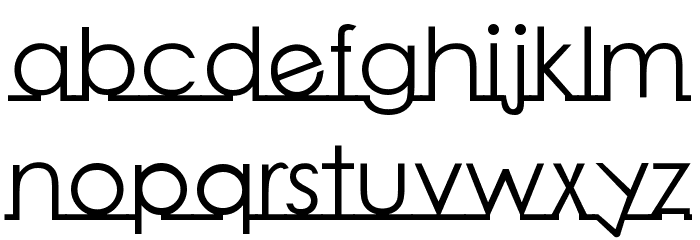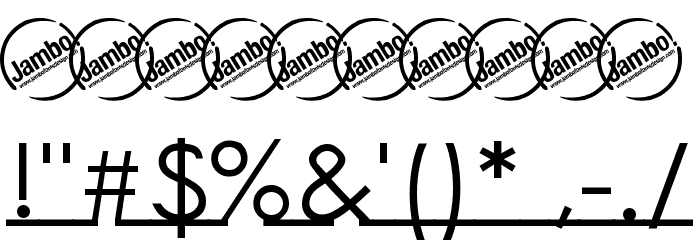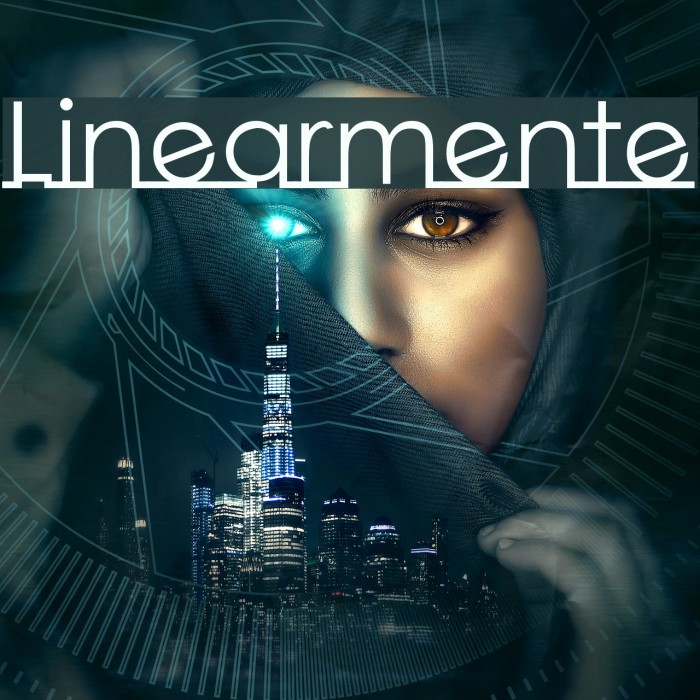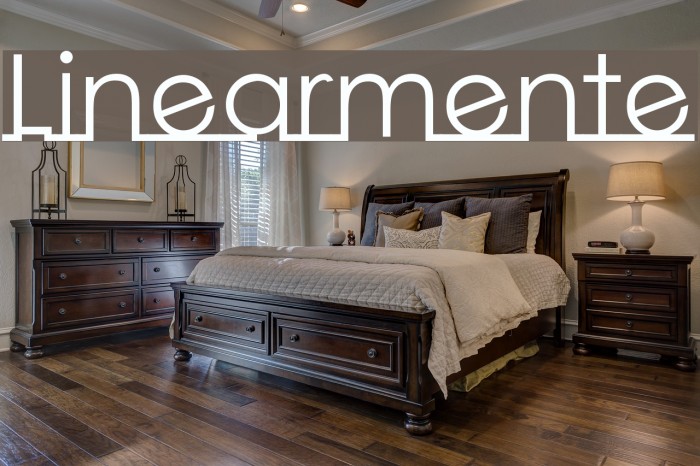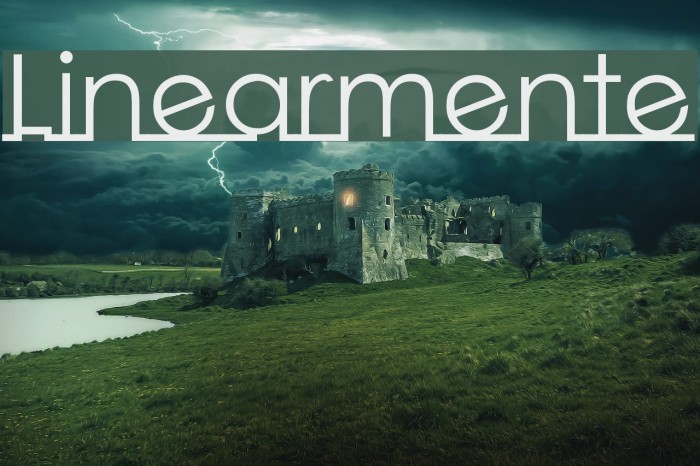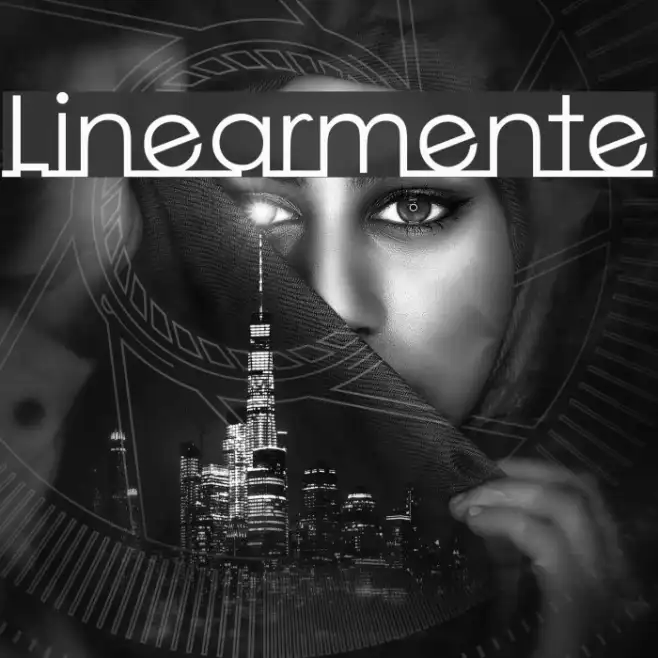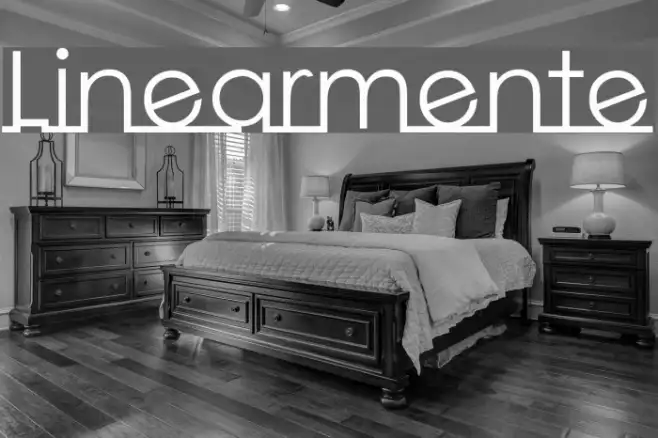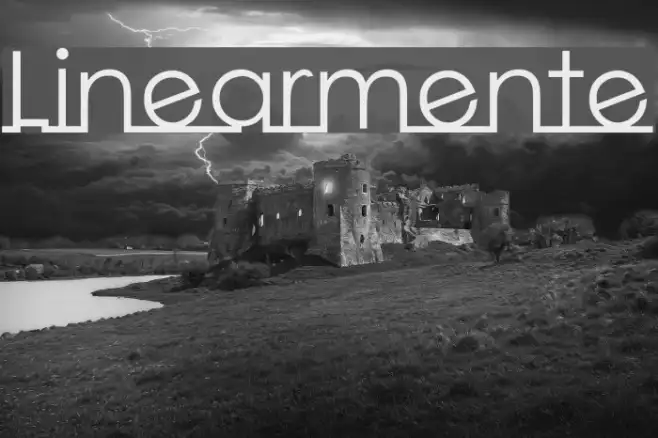
Linearmente Font
This font features a clean, geometric design with a modern aesthetic. The characters are constructed with consistent stroke widths, giving it a uniform appearance. The uppercase letters are bold and striking, while the lowercase letters maintain a harmonious balance with their rounded forms. The font includes a full set of numerals and a variety of special characters, making it versatile for different uses. Its linear and structured style is complemented by a slight curvature in certain letters, adding a touch of elegance. The spacing between characters is normal, ensuring readability and clarity.
A modern, geometric font with consistent stroke widths and balanced forms.
- Font: Linearmente
by JamboFonts - Weight: Regular
- Proposed Projects: Ideal for branding, advertising, and editorial design projects where a modern and clean look is desired.
- Use Case: Headlines, Logos, Branding